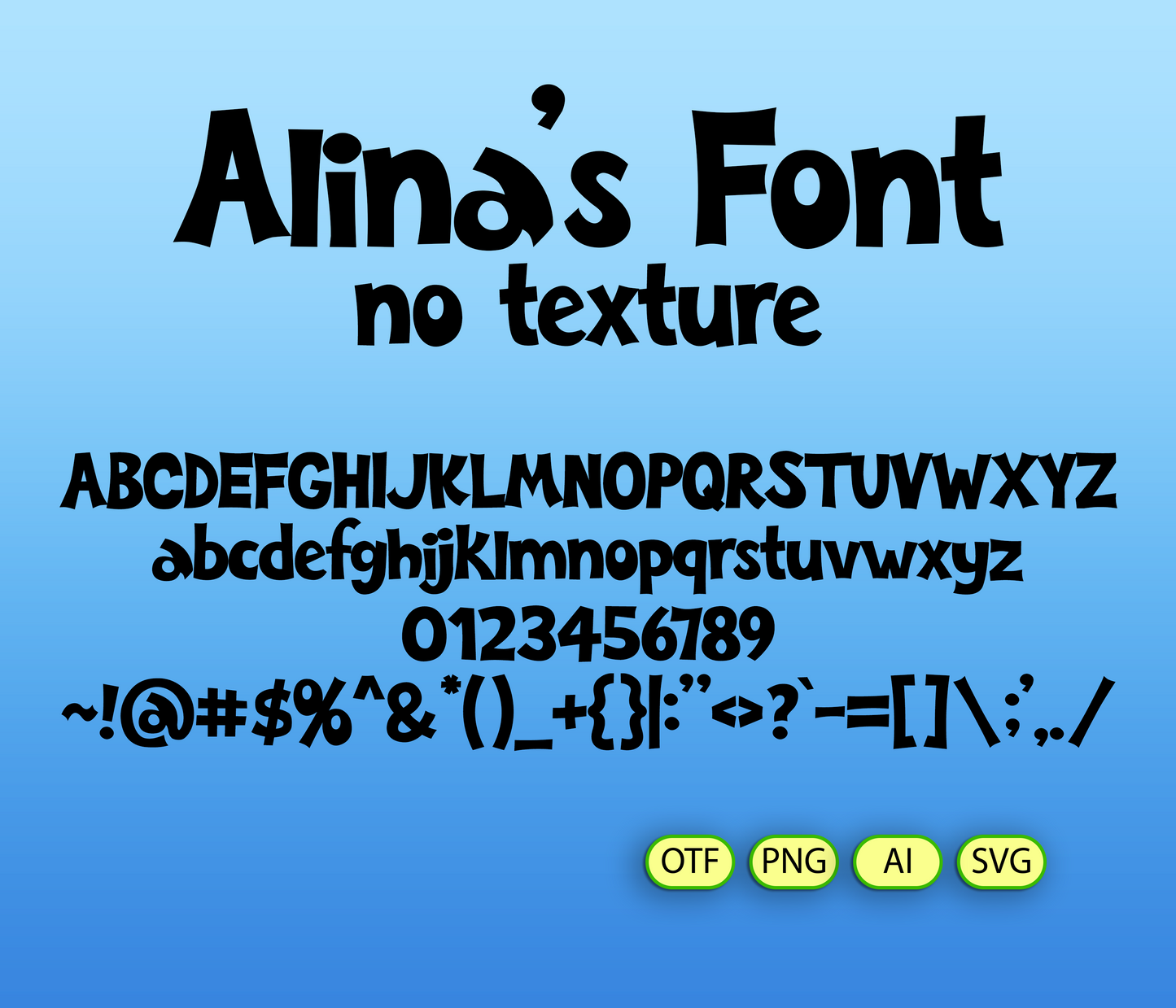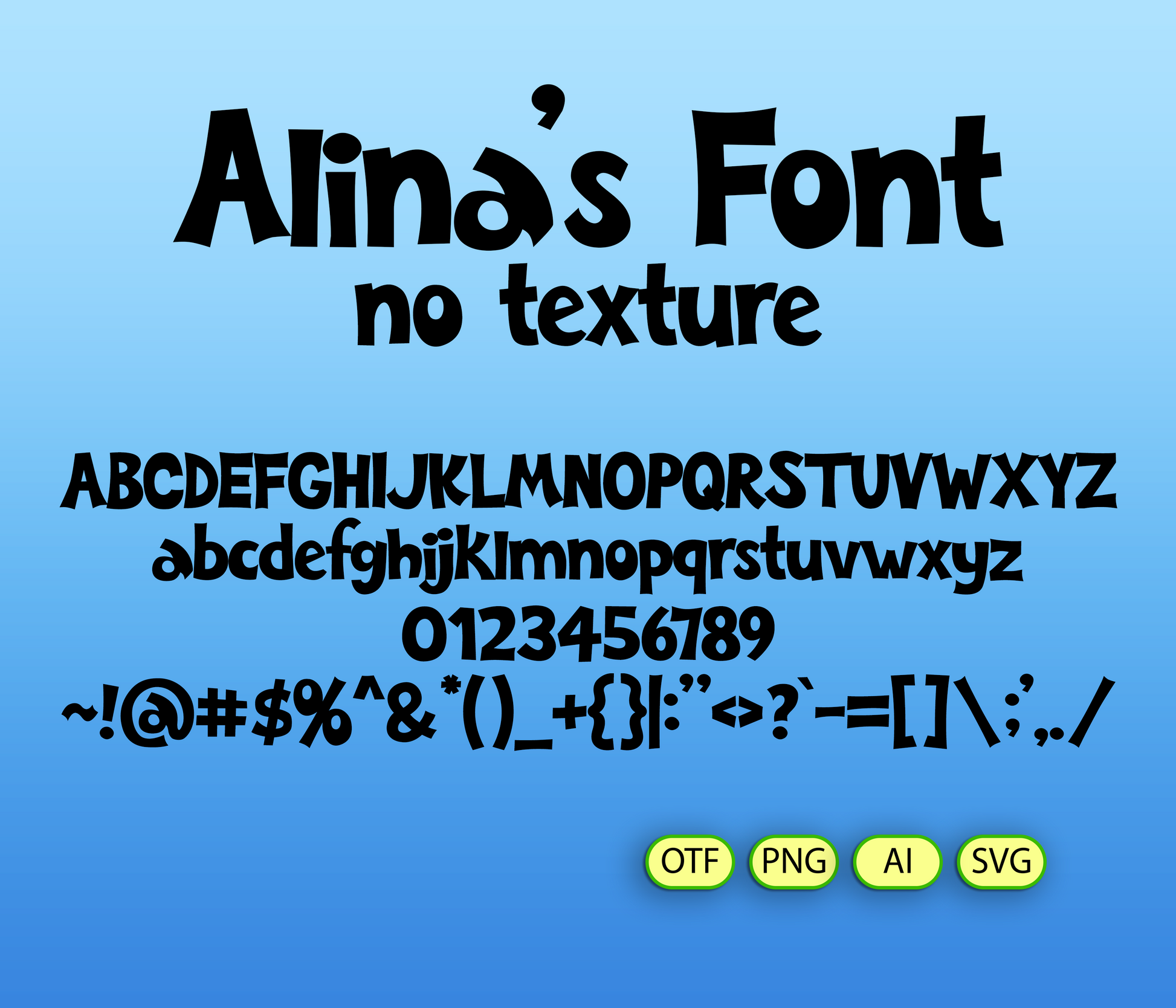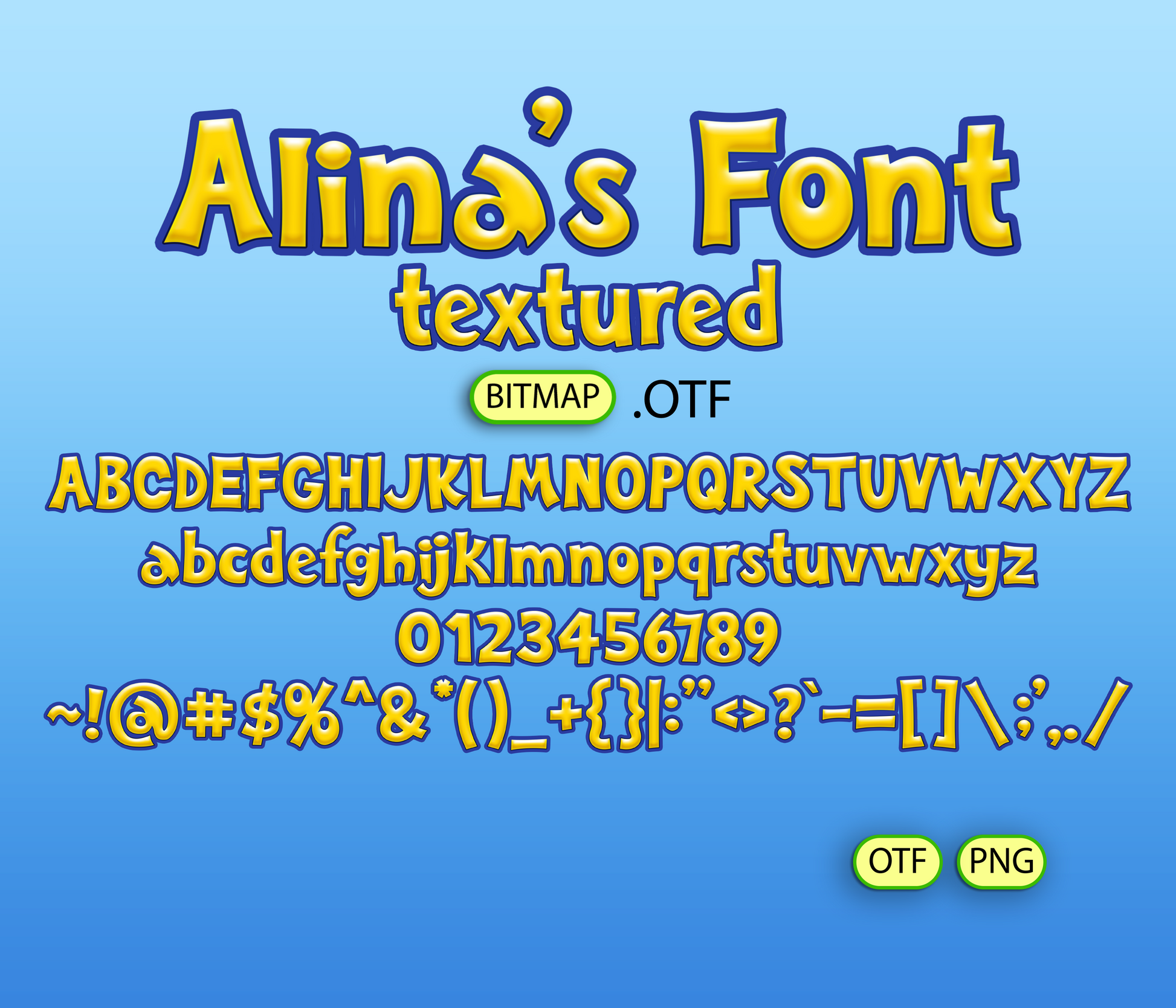
Educational Wonder Wheels Adventure Font Textured
Step into the world of scientific discovery with our Adventure Class font, capturing the excitement of a magical educational journey. This specially crafted typeface brings to life the wonder of learning through extraordinary field trips and amazing discoveries, perfect for teachers, educational content creators, and anyone looking to add a dash of scholastic magic to their projects.
Our Adventure Class font features playful, energetic characters that reflect the joy of hands-on learning and incredible classroom journeys. Ideal for:
1. Educational Materials: Create engaging worksheets, lesson plans, and learning resources that make science and discovery exciting
2. School Events: Design vibrant invitations, posters, and banners for science fairs, field trips, and educational celebrations
3. Teaching Tools: Develop eye-catching presentations, charts, and visual aids that bring learning concepts to life
4. Digital Content: Transform educational websites, blogs, and social media with headers and graphics that spark curiosity
5. Creative Projects: Perfect for classroom decorations, science club materials, and educational craft projects that inspire wonder
Our font celebrates the spirit of scientific discovery and the joy of learning through extraordinary experiences. Whether you're creating materials for classroom activities, designing educational resources, or adding whimsical charm to teaching tools, this font delivers the perfect mix of education and excitement.